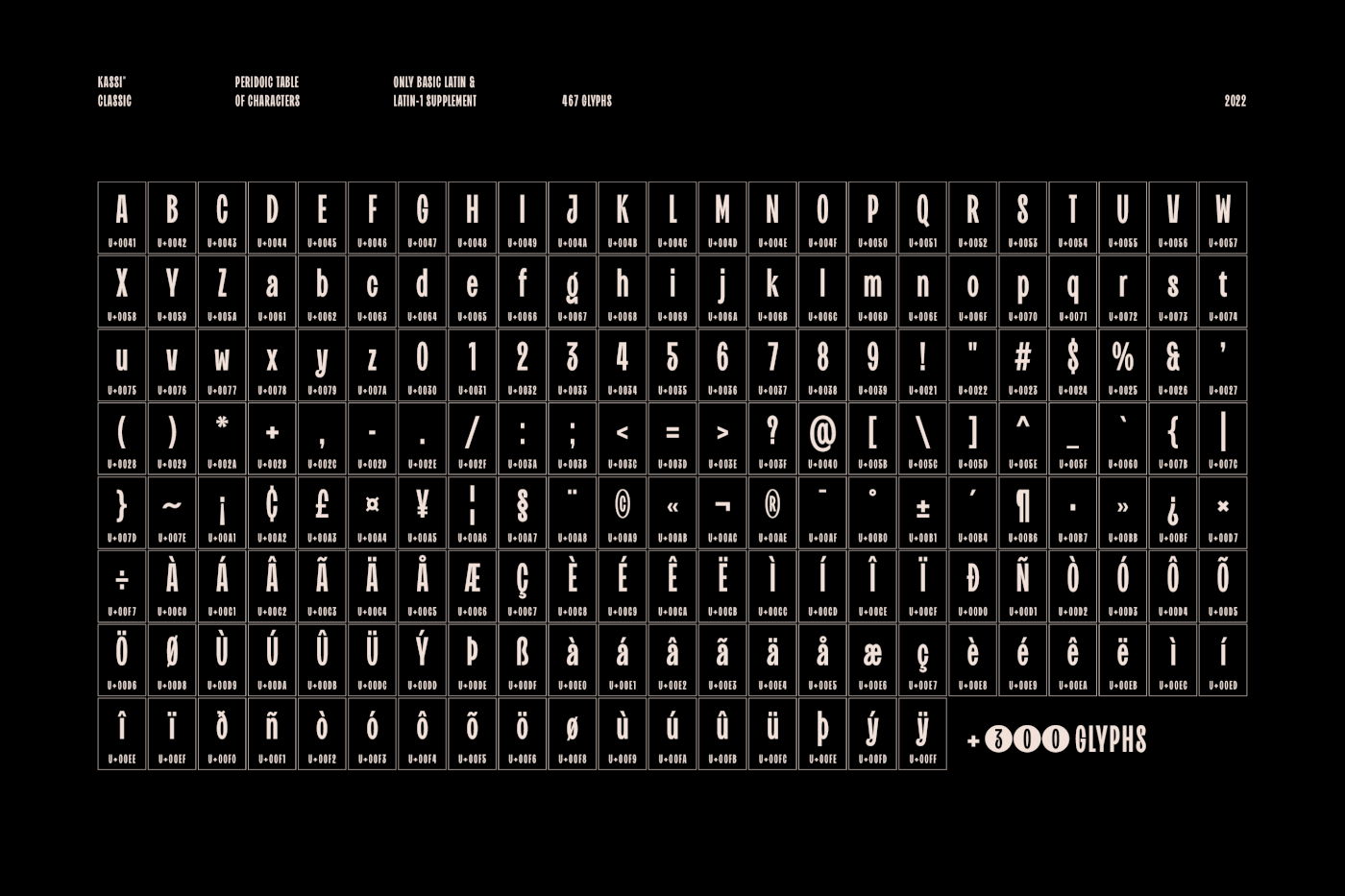
Kassi™ is a condensed typeface inspired by the scientific and mathematical world. It's available in 2 styles: The CLASSIC version, simple and readable with a touch of originality and the DISPLAY version, more elegant and contrasting. Kassi™ is compatible with 93 languages and contains over 450 glyphs including several alternatives.